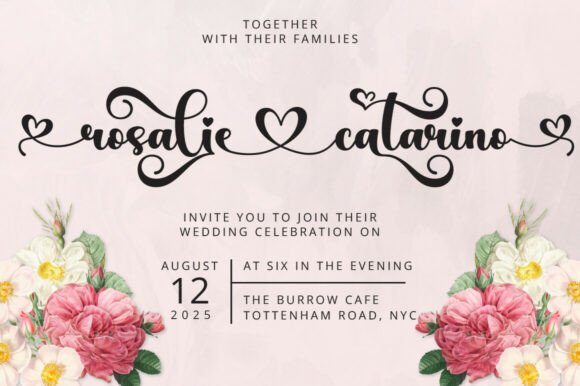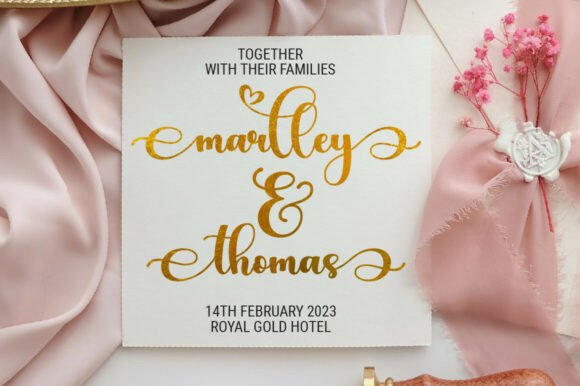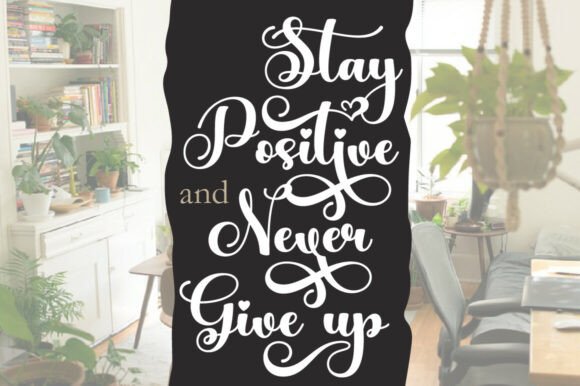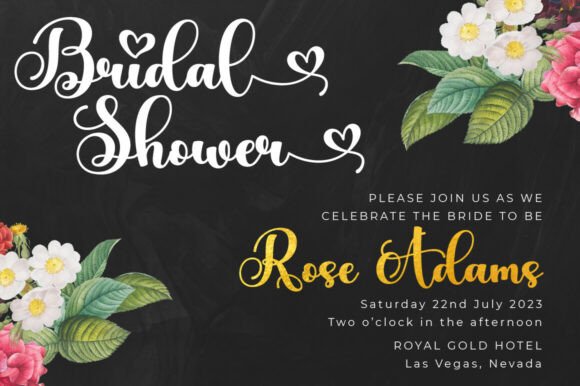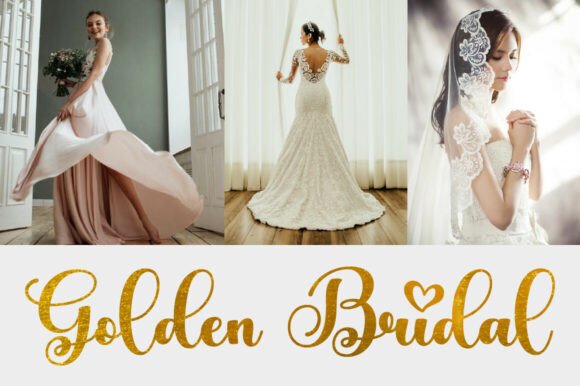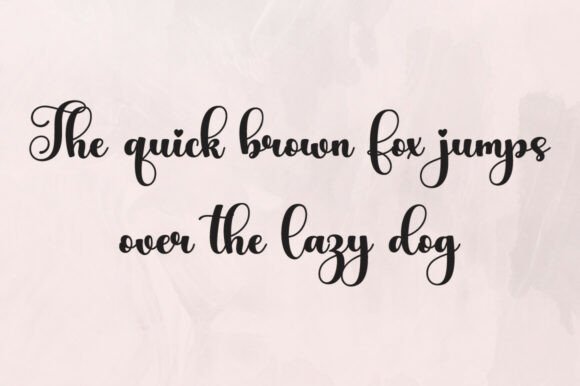
Introduction to Maddison Thick Font
Have you ever been working on a creative project, pouring your heart and soul into every detail, only to feel like something’s missing? That’s when I discovered the Maddison Thick Font – a game-changer for designers looking to add a touch of elegance and sophistication to their work. As a designer myself, I can attest that finding the right font can make all the difference in bringing a project to life.
What sets Maddison Thick apart is its versatility and range of applications. From wedding stationery and photography to product packaging and handwritten quotes, this font is perfect for any creative endeavor. Its bold yet refined design makes it an ideal choice for designers who want to create high-quality, visually appealing content with ease.
With 9 lovely stylistic sets, a full set of uppercase and lowercase letters, multilingual symbols, numerals, punctuation, and ligatures, the Maddison Thick Font is a valuable design resource that’s sure to elevate your work. And with its PUA encoding, you can access all of the glyphs and swashes with ease – making it a free download that’s truly priceless.
Key Features of Maddison Thick Font
- High-quality font suitable for creative projects and design resources.
- Unique characteristic: Thick and bold font style, ideal for making a statement in designs.
Honest Review: Maddison Thick Font
As a designer, I’m always on the lookout for high-quality design resources to elevate my creative projects. The Maddison Thick Font has caught my attention with its unique and bold design. ✨
- High-quality design with a thick, textured look
- Perfect for use on a transparent background to make it stand out
- Only a single style is available, which may limit its versatility
- The font may not be suitable for use in body text due to its thick design
Overall, I’m impressed with the Maddison Thick Font’s design and versatility. While it may have some limitations, it’s a great addition to any designer’s toolkit for creative projects that require a bold and eye-catching font.
Maddison Thick Font